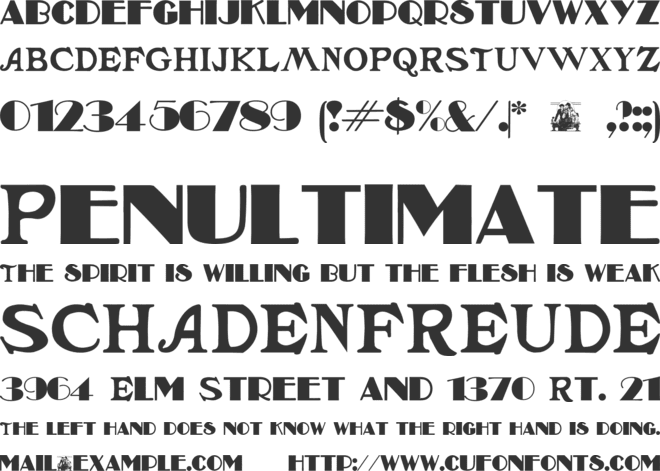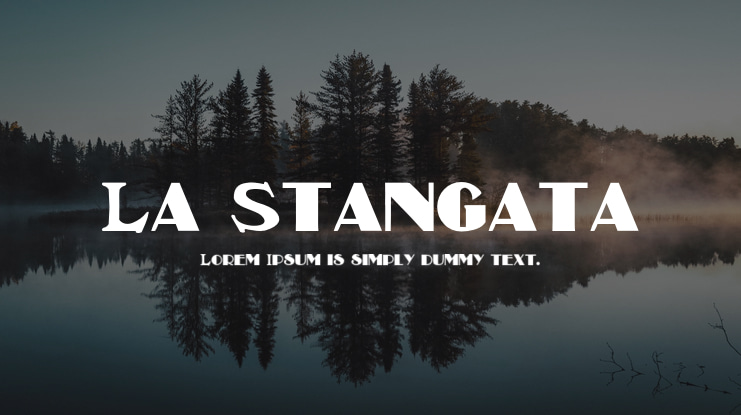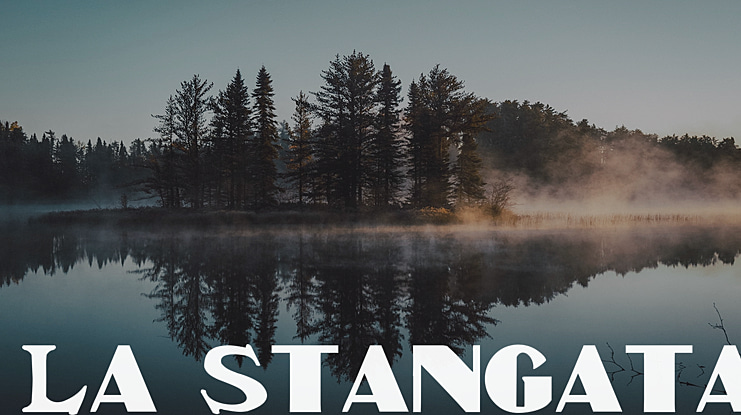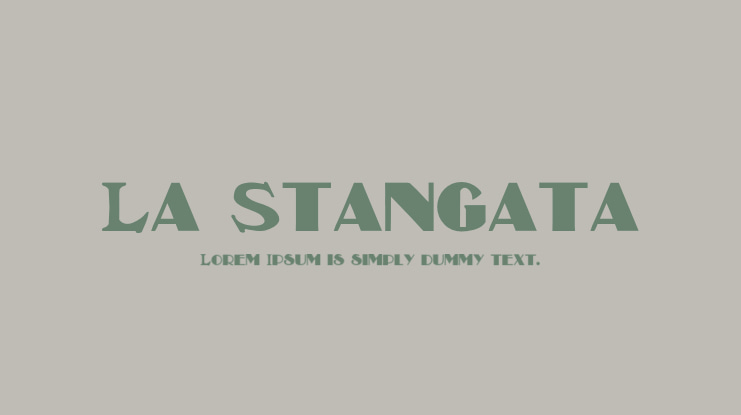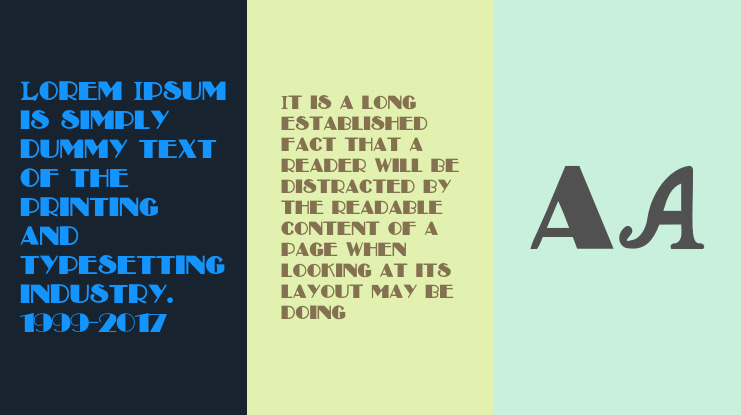
La Stangata Font
P. A. Vannucci
directly from the Best movie by George Roy Hill, with ROBERT REDFORD and PAUL NEWMAN, the original font for all lovers.
direttamente dal film diretto da George Roy Hill,interpretato da una indimenticabile coppia, ROBERT REDFORD & PAUL NEWMAN,il font inedito per tutti gli estimatori del film.